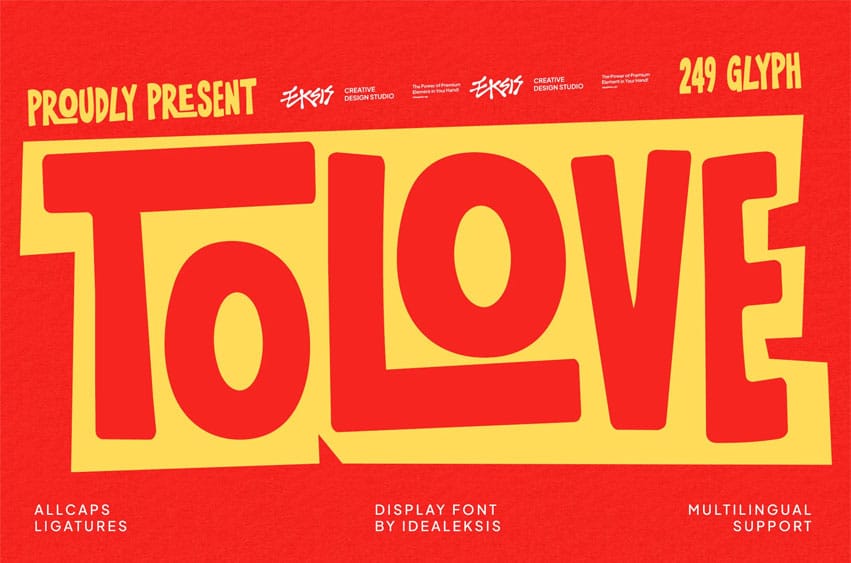
Tolove Font features exceptionally heavy, bold strokes with a playful, hand-cut aesthetic. The letterforms are characterized by their chunky, irregular proportions and rounded terminals, giving them a friendly yet high-impact presence.
The tight kerning and overlapping elements create a dense, rhythmic visual texture. Its lack of serifs and uniform weight distribution emphasize its modern, pop-art-inspired look, making it ideal for headlines, posters, and branding projects that require a strong, energetic personality.
- Allcaps Character
Perfect for
- Bakery and café branding
- Food and beverage logos
- Restaurant menus and signage
- Coffee shop and donut shop designs
- Food packaging and labels
- Social media food promotions
- Kitchen-themed posters and prints
- Culinary blogs and recipe graphics